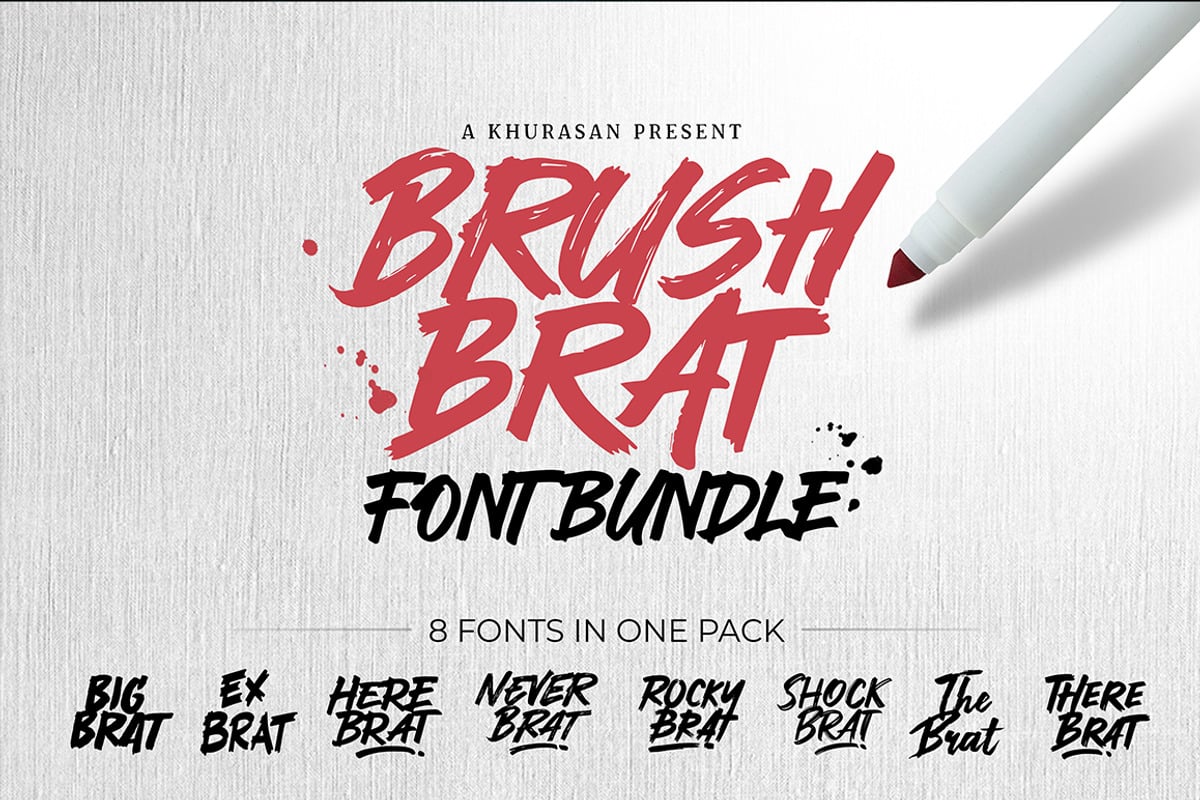
Brush Brat Font Bundle
The Brush Brat Font Bundle delivers high-quality brush typefaces perfect for contemporary design projects. Each font features modern styling with rough textures and distinctive character variations that bring personality to your creative work.
This versatile collection excels in multiple design applications:
- Movie posters and film graphics
- Lettering for book covers
- Album and music cover designs
- Logo and brand identity
- And much more creative projects
Bundle includes handpicked fonts perfect for crafters and designers:
- Big Brat
- ExBrat
- Here Brat
- Never Brat
- Rocky Brat
- Shock Brat
- The Brat
- There Brat